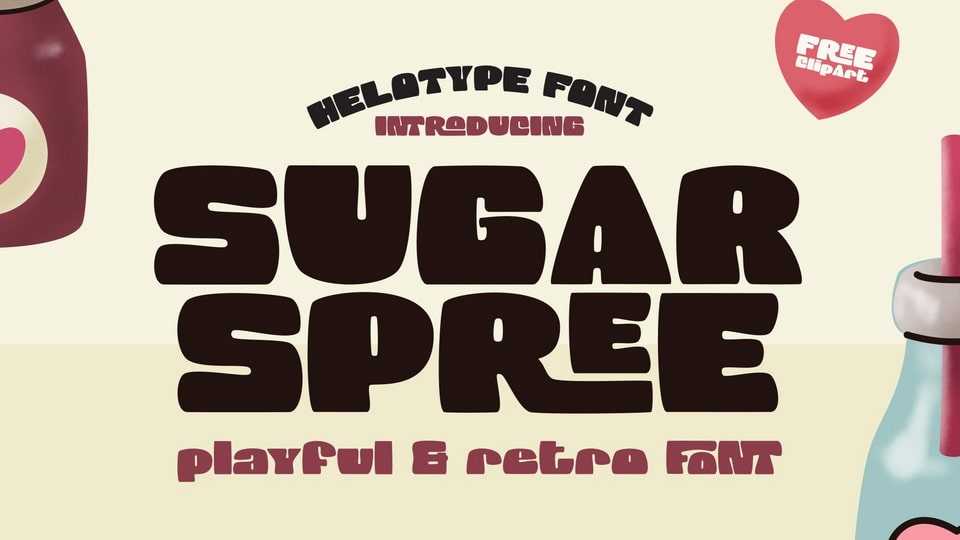
Download Sugar Spree font, a playful retro display typeface that’s bursting with personality. Its bold, chunky letters and charming details capture the spirit of vintage candy shops and sweet treats.
Designer: Helotype